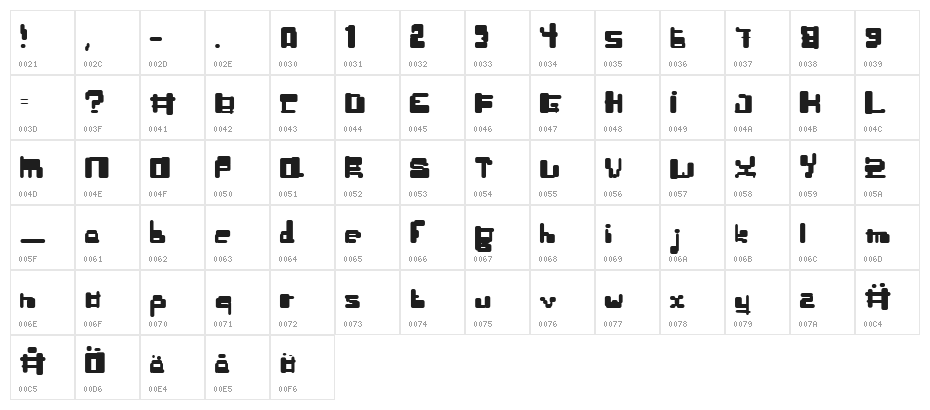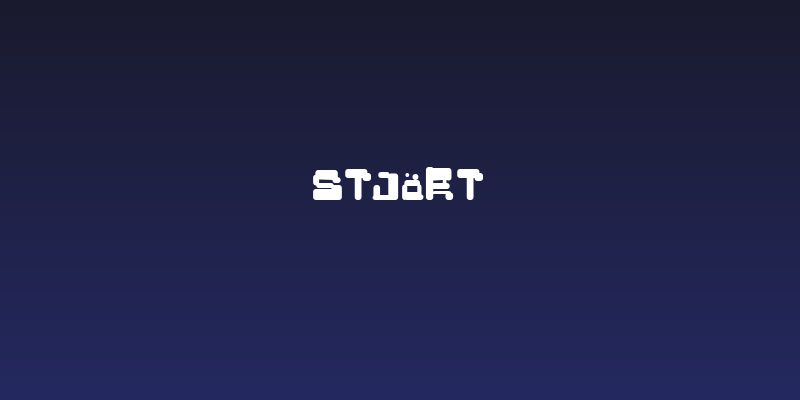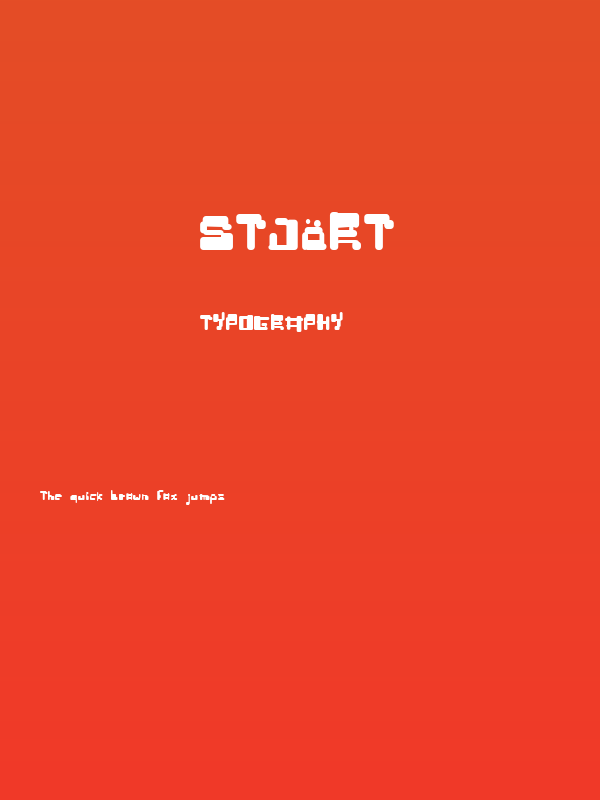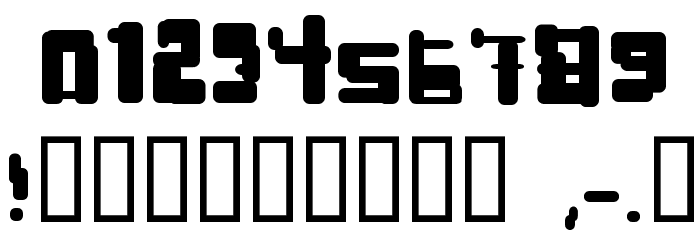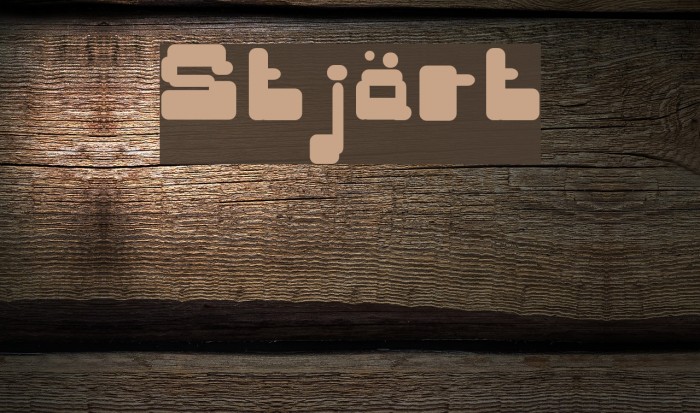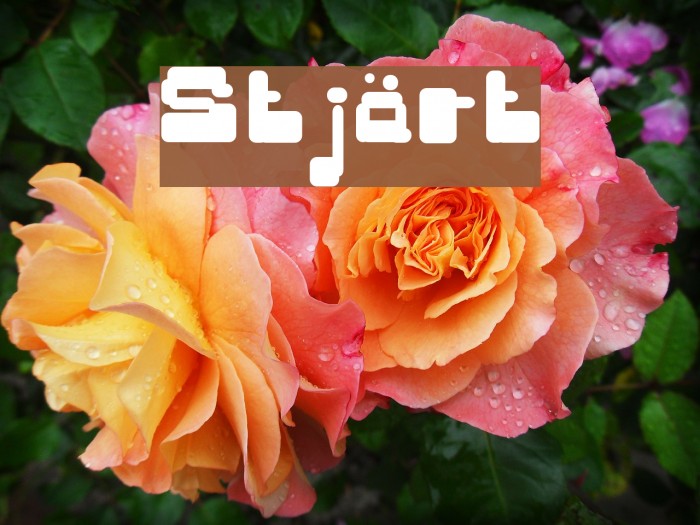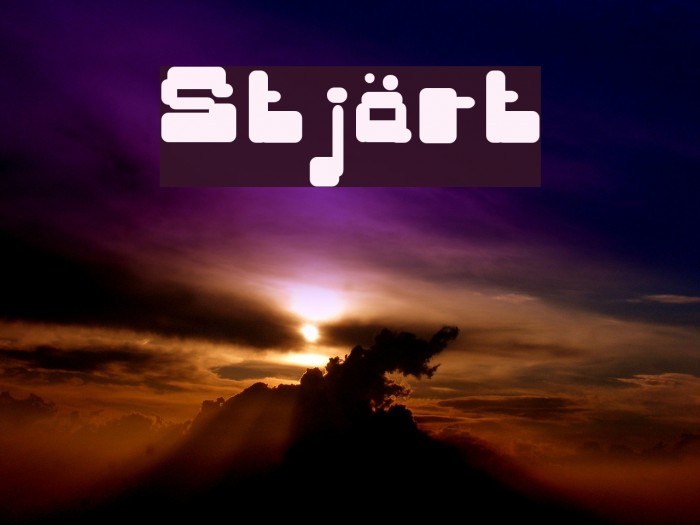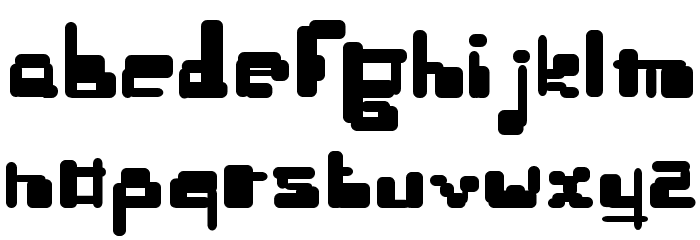
Stjärt Font
Stjärt Description
This font features a bold, geometric style with a distinctly modern and digital aesthetic. The characters are constructed with thick, blocky strokes, creating a strong visual impact. The design incorporates rounded edges and a consistent stroke width, giving it a cohesive and unified appearance. The uppercase and lowercase letters maintain a similar structure, enhancing readability while preserving the font's unique character. The numerals and special characters follow the same design principles, ensuring uniformity across all glyphs. This font's boldness and geometric nature make it suitable for projects that require a futuristic or tech-inspired look.